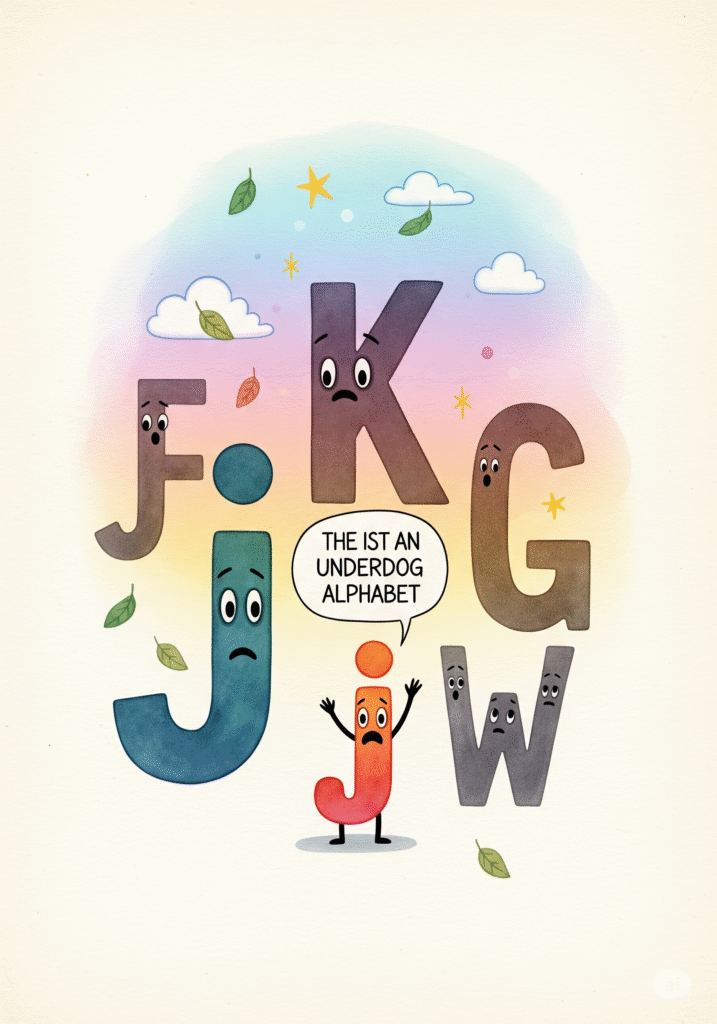
When we think of standout letters in the alphabet, “j” rarely tops the list. It’s the introvert of lowercase letters—slightly curved, quietly hanging below the baseline, and often misunderstood. But don’t be fooled by its modest demeanor—this little glyph has a rich history, elegant form, and even its own unique dot (like its best friend, “i”). Today, we give “j” the spotlight it deserves.
A Brief History of the Letter “j”
The letter “j” is a relative newcomer to the alphabet party. Unlike its ancient cousins like “a” or “m”, the letter “j” didn’t officially exist as a separate letter until the 16th century.
Let’s travel back to ancient Rome. Latin didn’t include a “j” at all. Instead, the sound that we now associate with “j” was represented by the letter “i”. That’s right—“i” and “j” used to be the same letter. Think of them like conjoined twins who eventually went their separate ways.
In Medieval scripts, scribes began to elongate the tail of the “i” when it appeared at the end of words, mainly to add flair and clarity. This elongated form, which dipped below the baseline, started to evolve into what we now recognize as the lowercase “j”.
It was Gian Giorgio Trissino, an Italian Renaissance grammarian, who is credited with distinguishing the “j” as a separate letter from “i” in the 1524. This separation allowed languages like English and German to assign distinct sounds to each letter, helping “j” form its own identity. By the time printing presses became more common, “j” was here to stay.
The Anatomy of a Lowercase “j”
Let’s talk design. The lowercase “j” is one of the few Latin alphabet letters that:
-
Has a descender – it dips below the baseline, making it stand out.
-
Features a dot (tittle) – like “i”, “j” carries a dot above it.
-
Often comes with a curve or hook – the descender might be a simple vertical line or end in a graceful hook, depending on the typeface.
The combination of these elements gives “j” a unique visual rhythm. It balances delicacy (with its dot) and strength (with its descending stroke).
Designing the Letter “j” from Scratch
If you’re creating a font or custom letterform, designing “j” can be trickier than it looks. Here’s what to keep in mind:
-
Start with “i”: Since “j” is closely related to “i”, begin with the design of your lowercase “i”. The height, stroke weight, and style should match.
-
Extend the stroke below the baseline: Add a descender, typically aligned vertically or with a subtle curve. Ensure it’s proportional to other descending letters like “g” or “y”.
-
Style the terminal: Will your “j” end with a straight stroke, a gentle hook, or a serif? The choice depends on your typeface’s overall vibe—serif fonts tend to add a slight hook, while sans-serifs might opt for a clean cut.
-
Top it with a tittle: The dot should match the size and style of the dot on “i”—circular or square, light or bold, it all depends on your aesthetic.
Don’t forget optical balance: even though “j” descends, it shouldn’t look heavier or unbalanced compared to its upright neighbors.
Unique Facts about the Letter “j”
-
Scrabble Power: “J” scores a whopping 8 points in Scrabble—one of the highest-valued letters, tied with “X”.
-
Infrequency: It’s one of the least frequently used letters in English—but when it appears, it pops. Think “jazz,” “jump,” “jungle.”
-
Nicknamed: Typographers affectionately refer to “i” and “j” as the “tittle twins” due to their shared dot.
-
Global Sounds: The pronunciation of “j” varies wildly across languages. In English, it’s a voiced palato-alveolar affricate (like in “jam”), but in Spanish, it often sounds like a throaty “h” (as in “jalapeño”).
How “j” Behaves in Typography
In body text, “j” rarely draws too much attention—unless it shows up in clusters. In sans-serif typefaces, its long, sleek form can create rhythm and spacing challenges. In display typefaces or scripts, designers often use its tail to add flair, curves, or even swashes.
In handwritten fonts and calligraphy, “j” offers an opportunity for creativity. Designers might embellish the tail, add loops, or play with the size and shape of the dot.
The Underrated Charm of “j”
Let’s face it, “j” doesn’t show up often in most words. But when it does, it adds character—both literally and visually. Its distinct form and graceful descent give any typeface a unique flavor. It may be small and sneaky, but it’s a detail you don’t want to overlook.
So next time you’re designing or typing the letter “j”, give it a little extra love. After all, it’s come a long way from being just a stretched-out “i” with a tail.